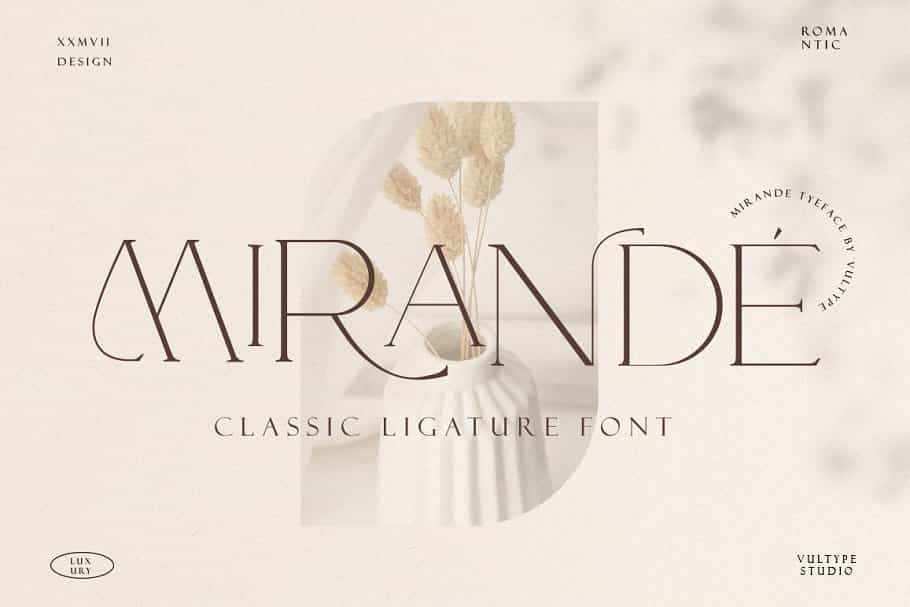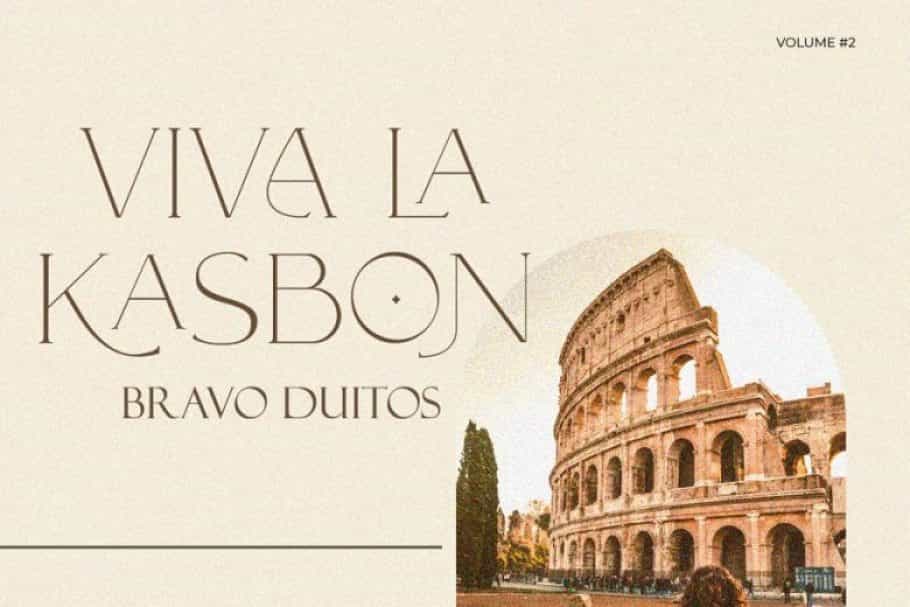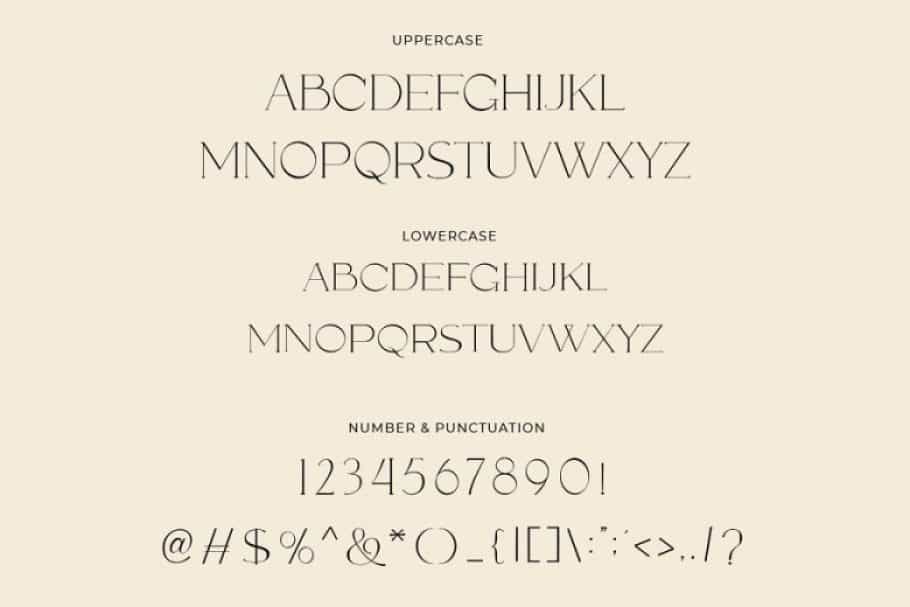
Mirande is a proper serif font with vintage vibe and a strong sense of style that will be perfect for fashion design. This font has a very simple and elegant look which has made it be seen as stylish for a long time. Ideal for mastheads, logos or pull quote pieces alike; it works remarkably well with both, the clean minimalist sans serif fonts or soft script fonts.